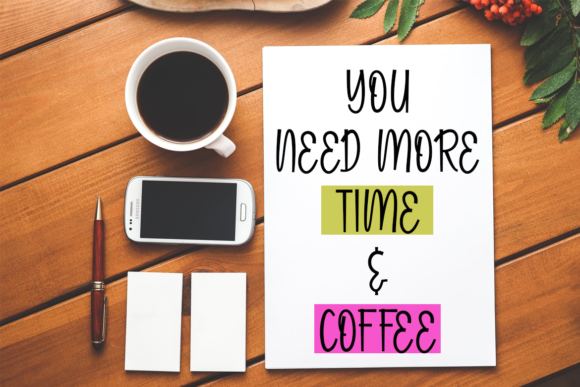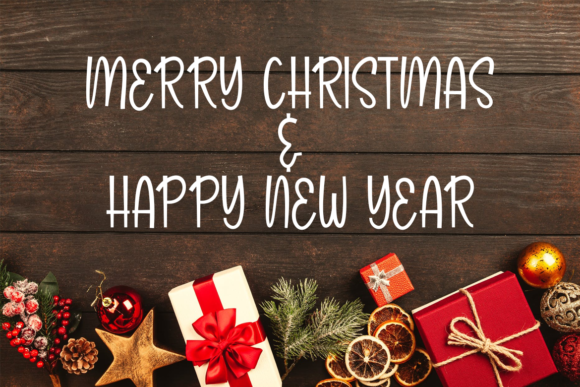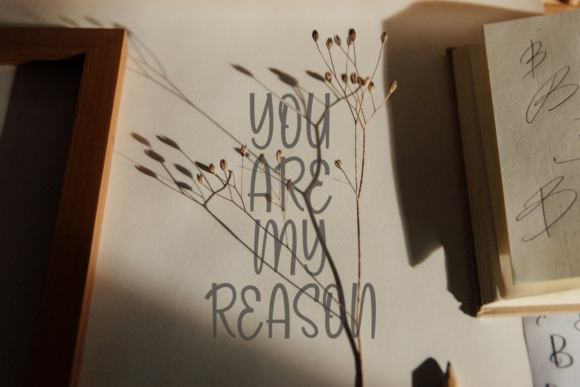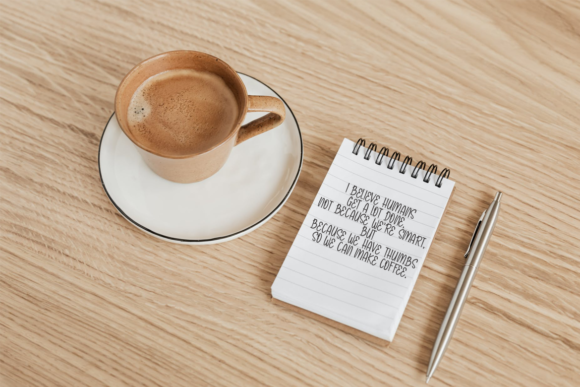
About Goresans Font
Goresans is a modern and eye-catching handwritten font. Clean and exquisite, this font is the perfect fit for all of your logos, branding, social media, and crafty DIY projects.